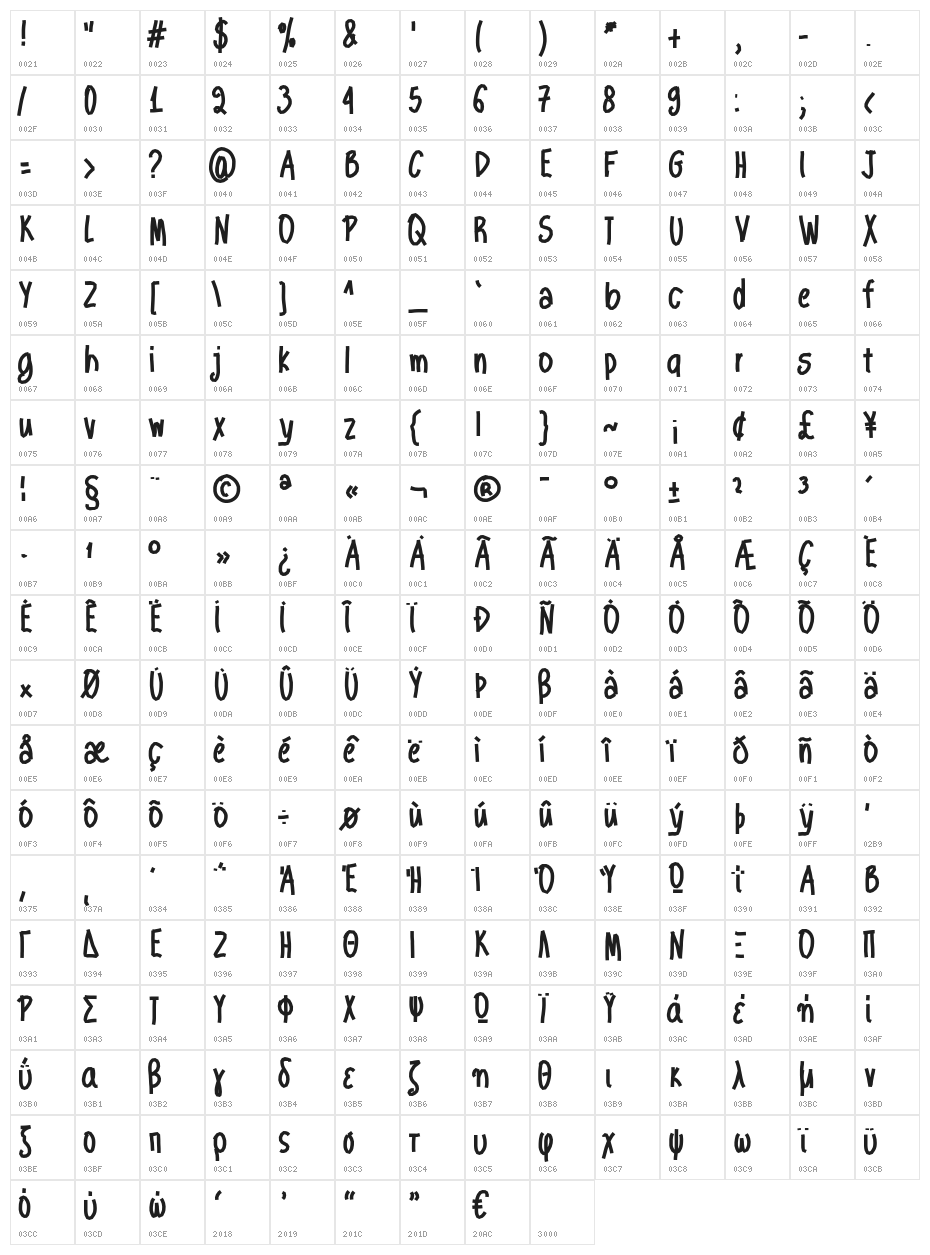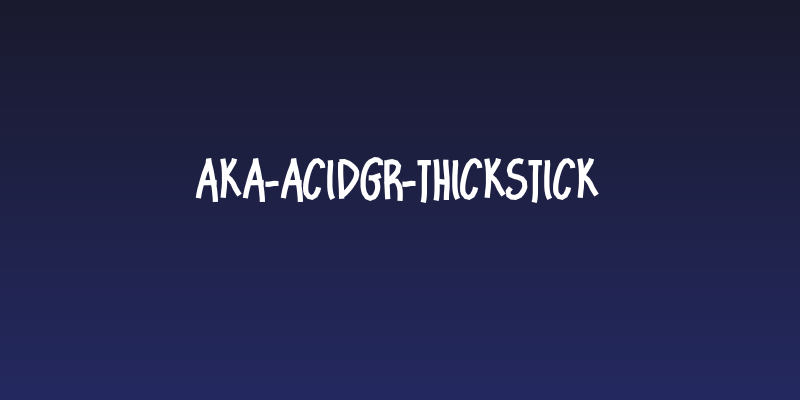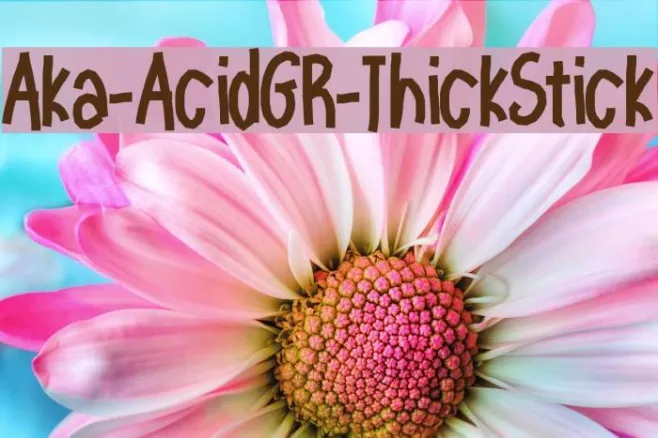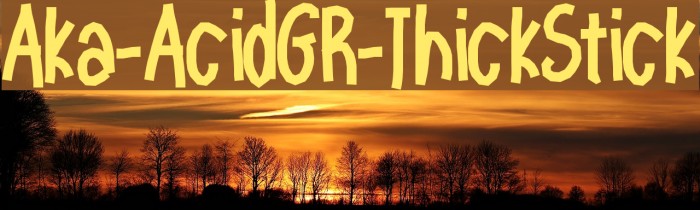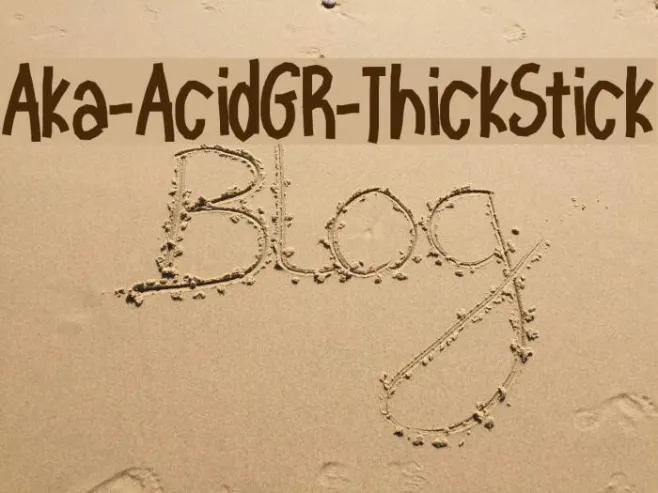
Aka-AcidGR-ThickStick Font
Aka-AcidGR-ThickStick Description
This font features a bold, hand-drawn style with thick, uneven strokes that give it a playful and energetic appearance. The characters are slightly irregular, adding a sense of movement and spontaneity. The uppercase and lowercase letters maintain a consistent style, with a quirky, artistic flair. The numbers and special characters follow the same bold and dynamic design, making the font versatile for various creative projects. Its unique style is reminiscent of graffiti or street art, making it ideal for designs that require a bold statement.
| Use Case | Headlines, Posters, Artistic designs |
| Proposed Projects | Ideal for posters, album covers, street art designs, and any project requiring a bold, artistic touch. |